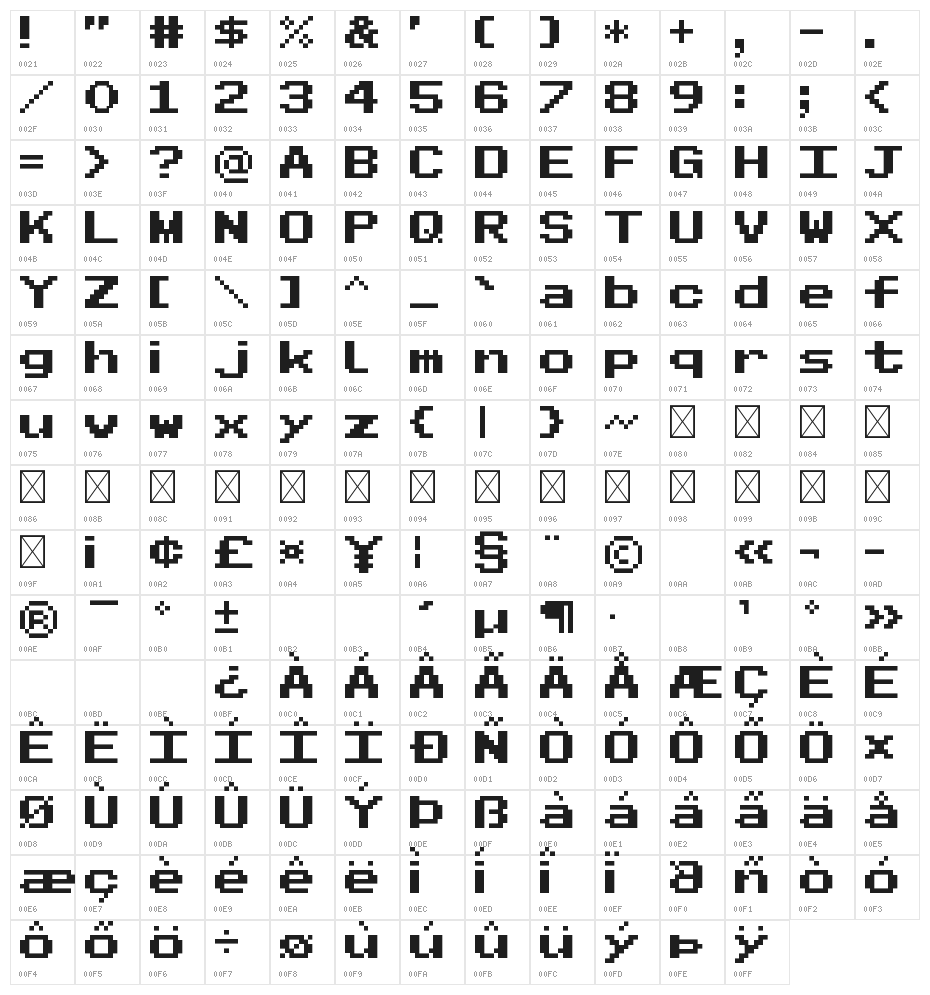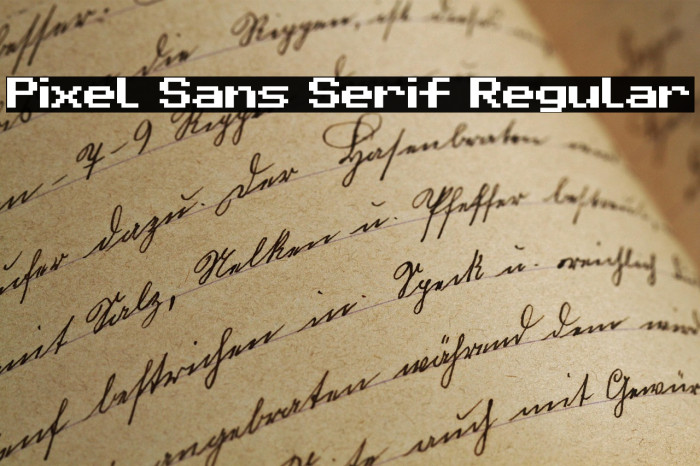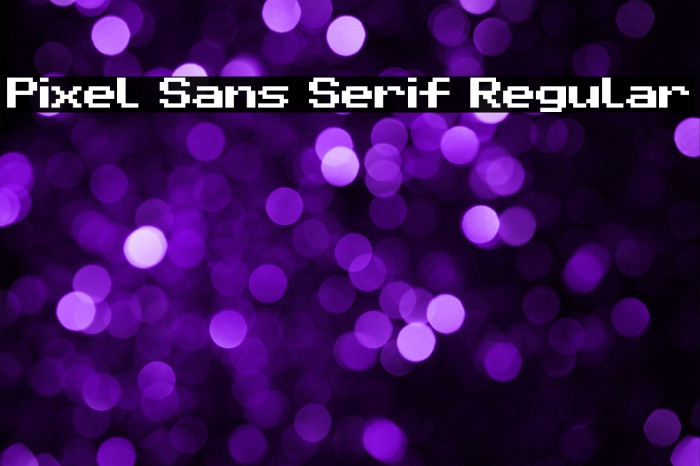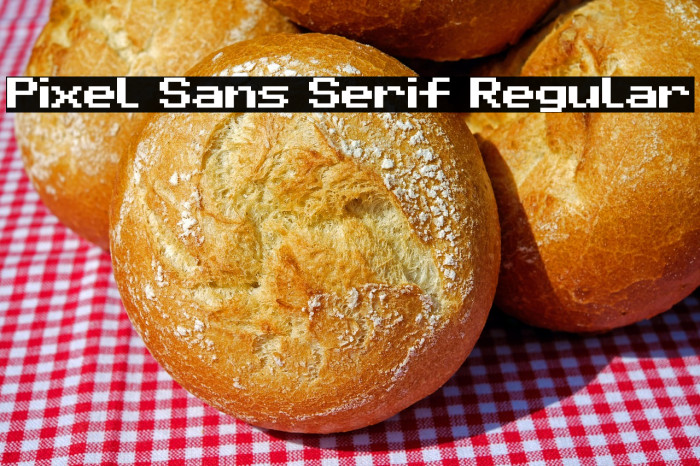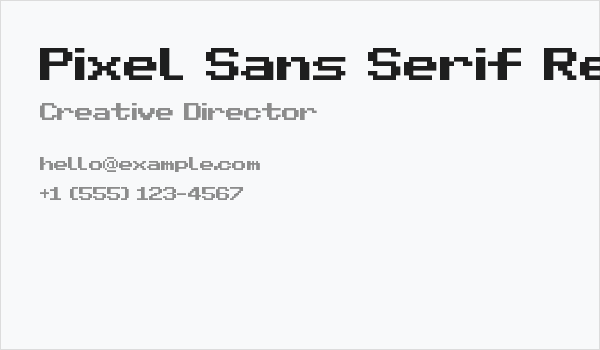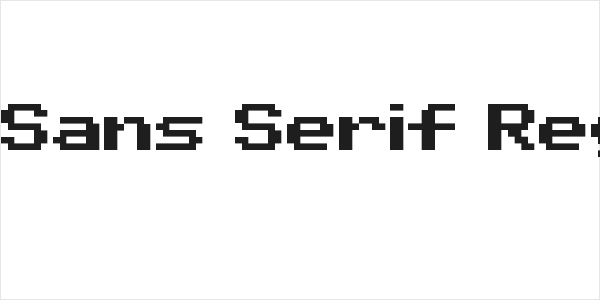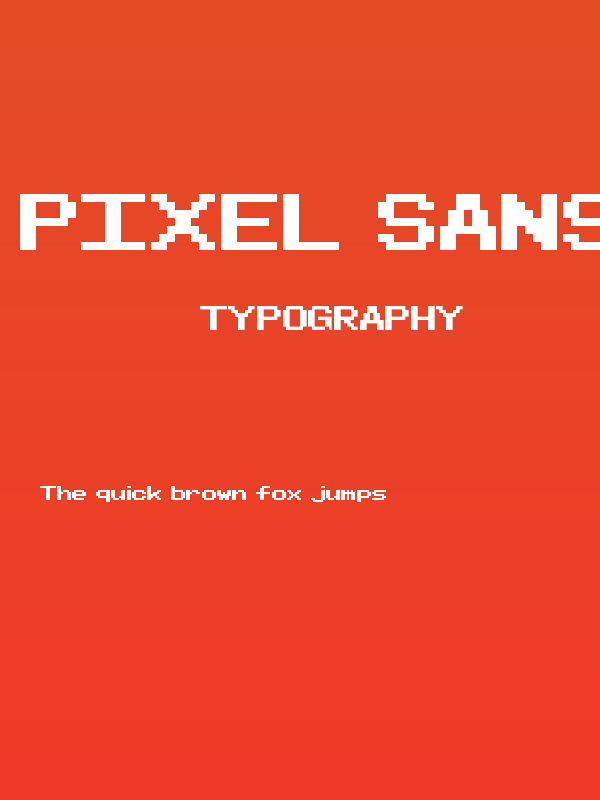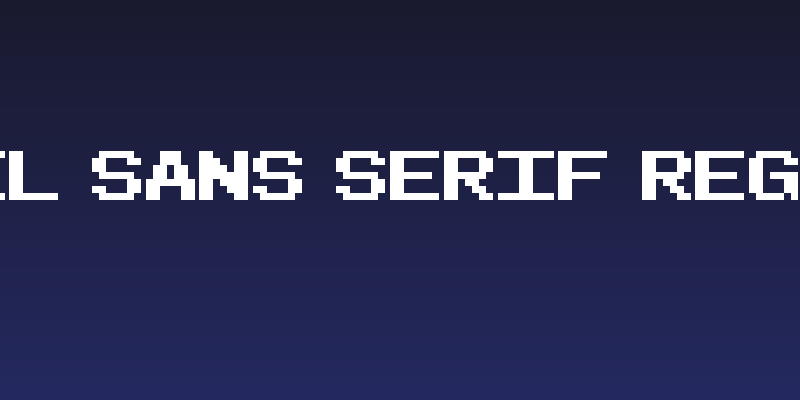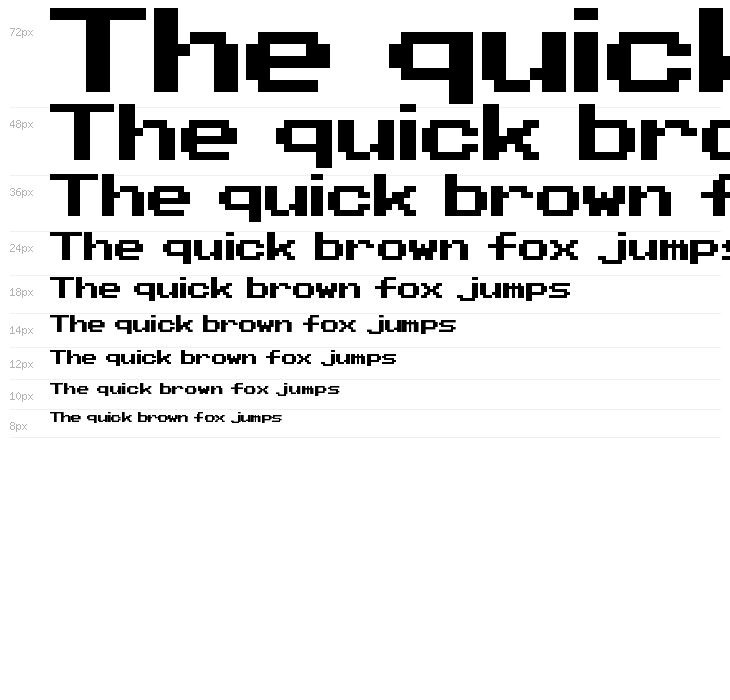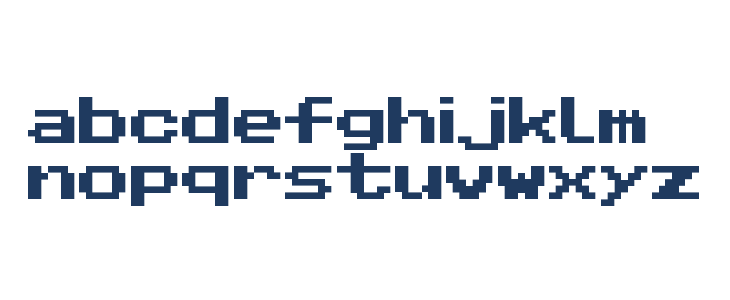
Pixel Sans Serif Regular Font
Pixel Sans Serif Regular Description
This font features a distinct pixelated style reminiscent of early digital displays and video games. Each character is constructed with a blocky, grid-like appearance, giving it a retro, nostalgic feel. The uppercase and lowercase letters maintain a consistent height, enhancing readability while preserving the pixel art aesthetic. The numerals and special characters follow the same design principles, ensuring uniformity across all glyphs. This font's simplicity and geometric precision make it ideal for projects that aim to evoke a sense of digital nostalgia or retro gaming culture.
| Use Case | Logos, Headlines, Digital Art |
| Proposed Projects | Ideal for retro video game designs, digital art projects, and any creative work aiming to capture a nostalgic, pixelated look. |